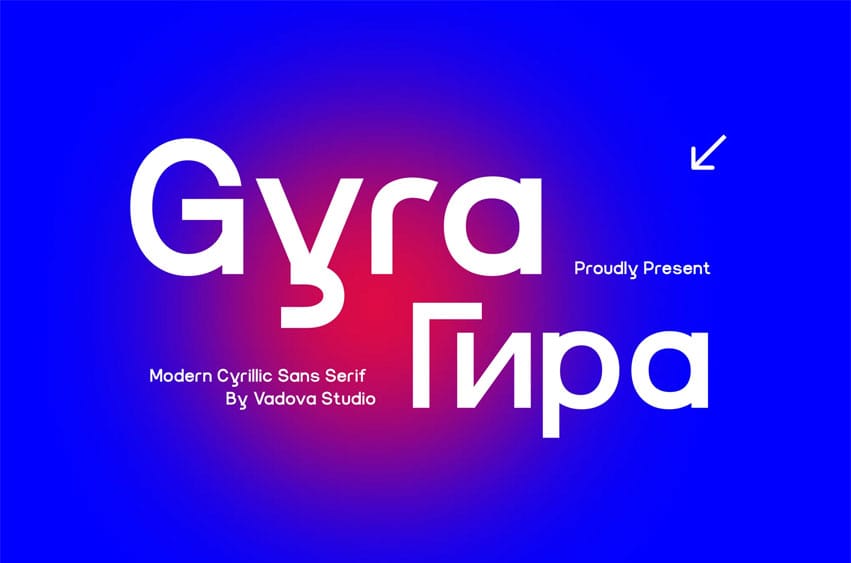
Gyra Font is a clean and contemporary sans-serif typeface designed for clarity, universality, and visual strength. With its geometric structure and multilingual capability, including Cyrillic support, this font is built to bridge cultural boundaries in sleek, modern design.
This typeface speaks the language of innovation and design intelligence. Whether you’re crafting a cutting-edge UI/UX interface, building out a branding system for a tech startup, or designing bold editorial spreads, Gyra feels at home. Its clean lines and rational proportions make it a go-to choice for web-based projects, apps, startup brands, and cultural institutions that need a font with structure and global appeal.
Gyra Suitable for Tech product branding, Art exhibition posters, Startup websites, Digital interfaces & dashboards, App UI/UX projects, Futuristic editorial layouts, Web 3.0 visuals, Creative portfolio presentations, NFT and crypto designs, Innovation-focused brochures, Bold landing page typography, Modern infographic design, Design system kits, Youth-focused fashion campaigns, and Digital product packaging